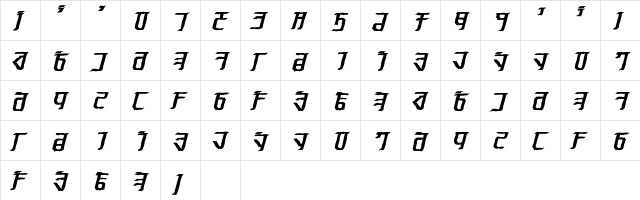
Exodite Distressed Bold Italic
Design Context for Exodite Distressed Typeface
Exodite Distressed trades polish for personality, using distressed and eroded forms to bring grit and attitude to creative work. The dynamic lean of this cut emphasises speed and emphasis in any layout.
A strong fit for alternative music projects, graffiti-adjacent design, and anything that deliberately resists polish.
Pro Tip: Use Exodite Distressed at larger sizes where the texture and irregularity of each letterform can be clearly seen — it loses its character at small sizes.